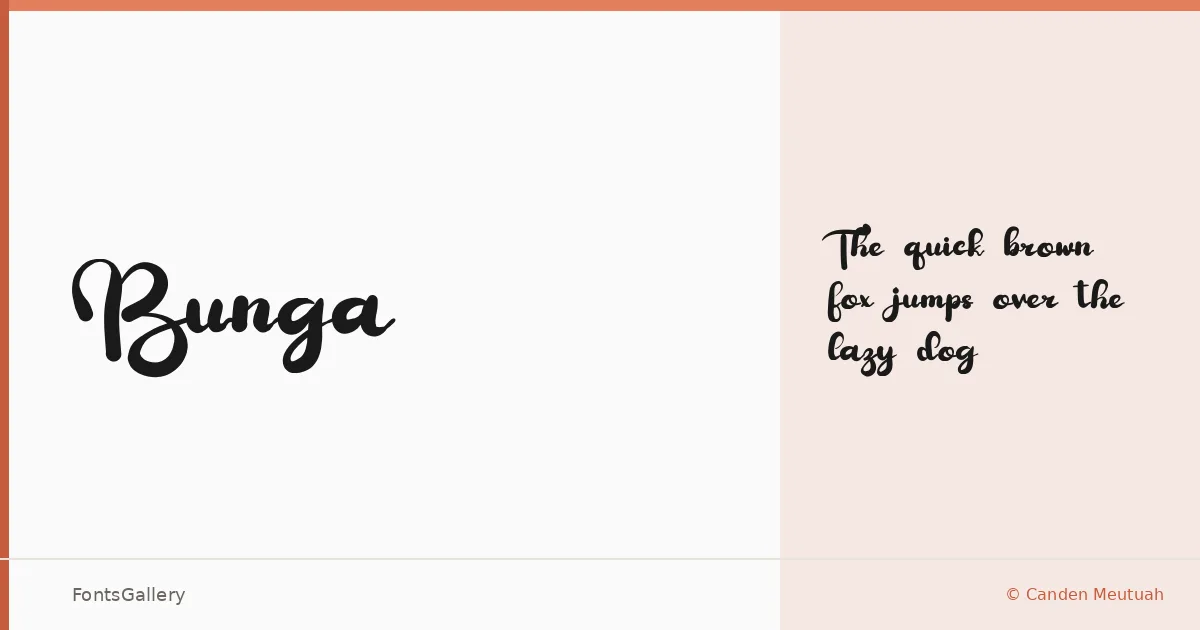
About Bunga Font
There is a lightness to this script — a lifted, flowing quality that keeps it feeling fresh rather than fussy. Bunga is the work of designer Canden Meutuah, released under the Canden Meutuah foundry, and it arrives as a single Regular cut available in both TTF and OTF formats.
The letterforms sit comfortably in that territory between elegant and playful: the strokes have a romantic softness without losing the crispness that makes a modern script readable at display sizes. A single weight means every decision about contrast and spacing has been made carefully — there is nothing redundant here, and the character carries on its own. It reads confidently in headline-scale settings while retaining enough personality to feel handcrafted.
The script suits branding work, logo lockups, invitation cards, and greeting cards — anywhere a signature warmth is the point rather than a decoration. Social media graphics, especially anything leaning toward lifestyle or celebration, are equally natural territory. For contrast pairings, it has been noted alongside clean text companions such as Helvetica, Canela, AQUA, Etna, and ABC Arizona, all of which give the looser script letterforms room to lead.